Frost
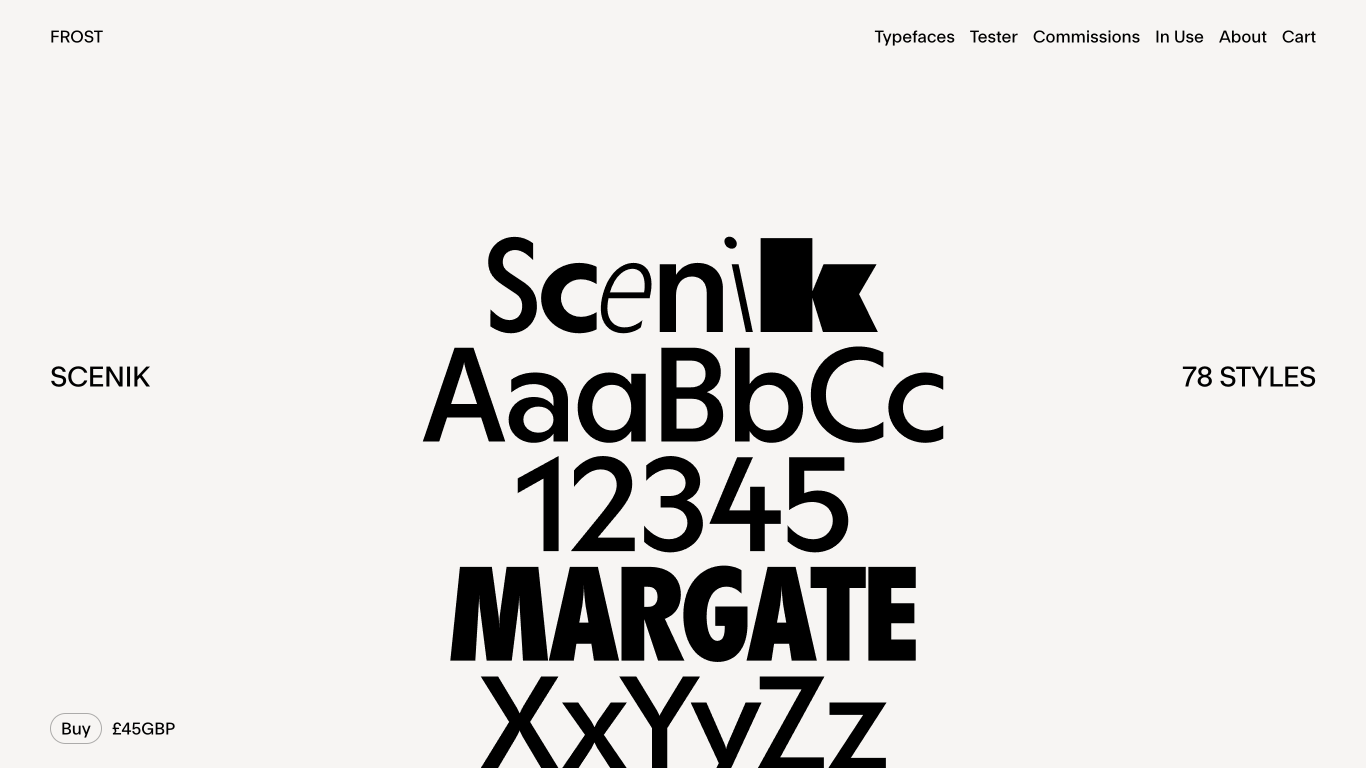
United Kingdom
2018
FROST is a UK-based type foundry founded by Harrison Marshall that collaborates with designers and leading brands to create, publish, and distribute retail and custom typefaces. Their uniqueness lies in blending historical references with contemporary design, resulting in versatile typefaces like Scenik, which offers 142 styles across 13 weights and 3 families.